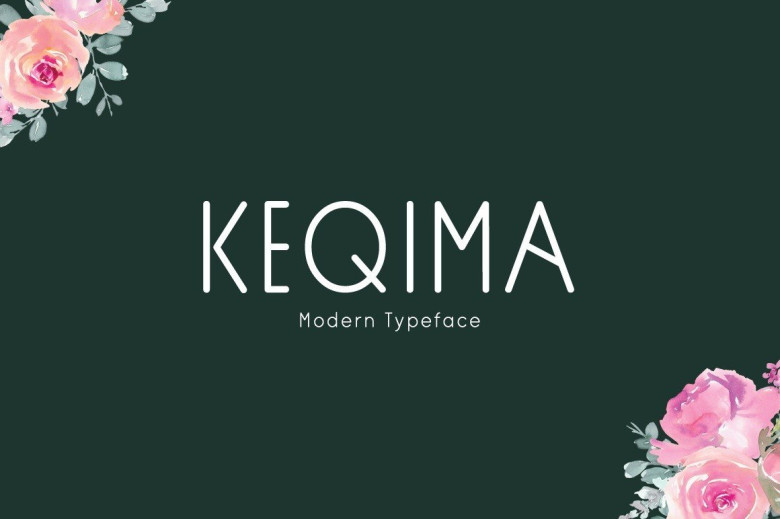
Keqima Sans Serif Typeface
Keqima Sans Serif Font is a tall modern condensed typeface that has gone through a natural process of craft and refinement to create a specialty blend. Keqima font it’s great to be used in a large variety of applications, from digital and print designs to website headers, posters, flyers and much more, this font is the best choice in creating attention-grabbing designs.